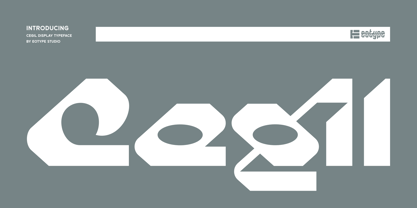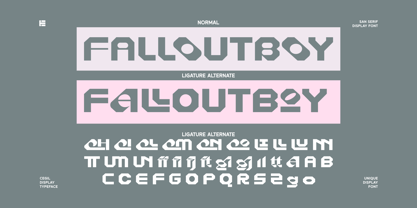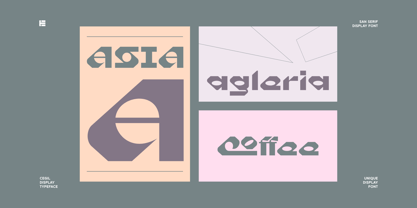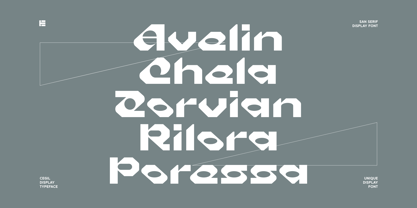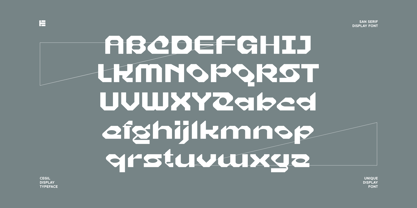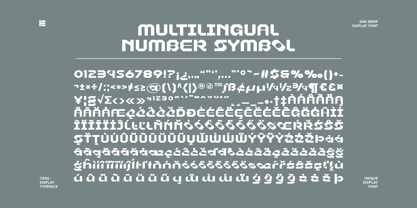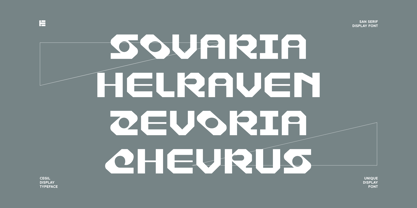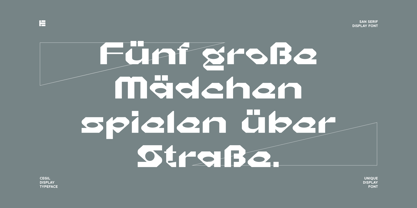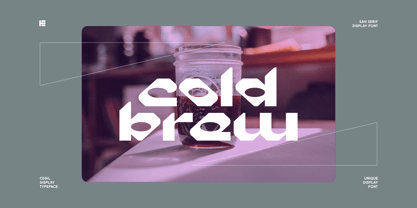
Cegil
par Eotype
La famille de polices Cegil a été conçue par Fajar Ramadan et publiée par Eotype. Cegil contient 1 styles. En savoir plus sur cette famille
Cegil is a bold and distinctive sans serif display typeface designed to stand out with a strong visual identity. Featuring sharp geometric forms combined with smooth curves, this font delivers a futuristic yet playful character that instantly captures attention. Crafted for creative professionals, Cegil brings a unique rhythm to typography through its custom ligatures and alternate characters, allowing you to create dynamic and expressive lettering compositions effortlessly. Its experimental shapes and bold personality make Cegil ideal for projects that demand originality and a modern edge. Whether you're building a brand or designing eye-catching visuals, this font gives you the tools to push your creativity further.
Concepteurs: Fajar Ramadan
Fonderie: Eotype